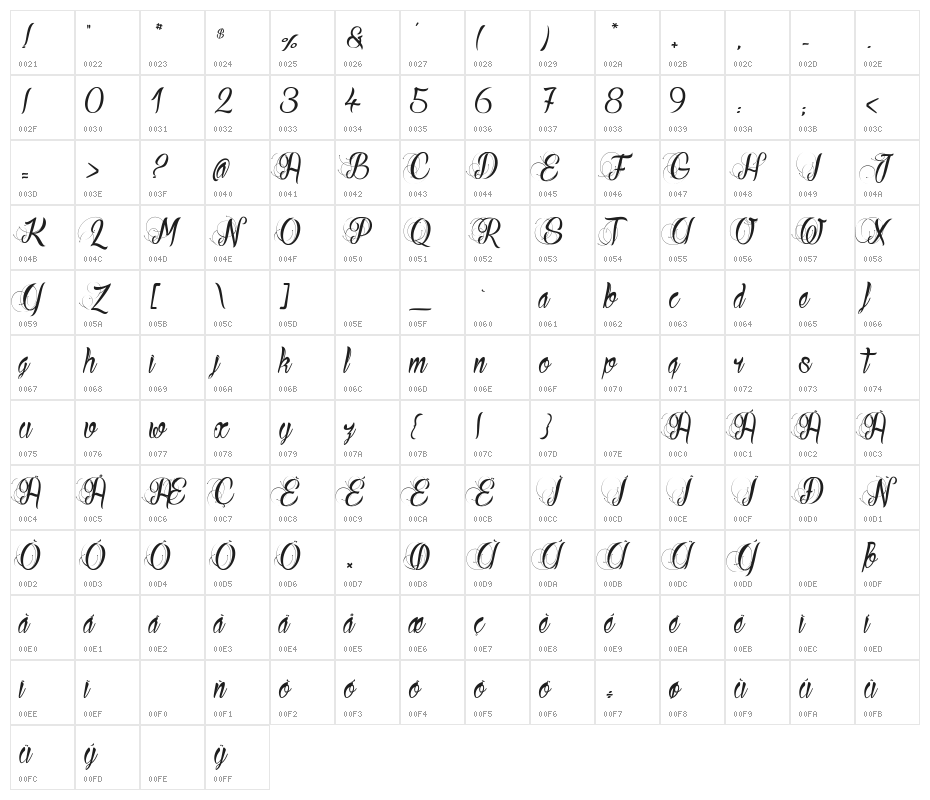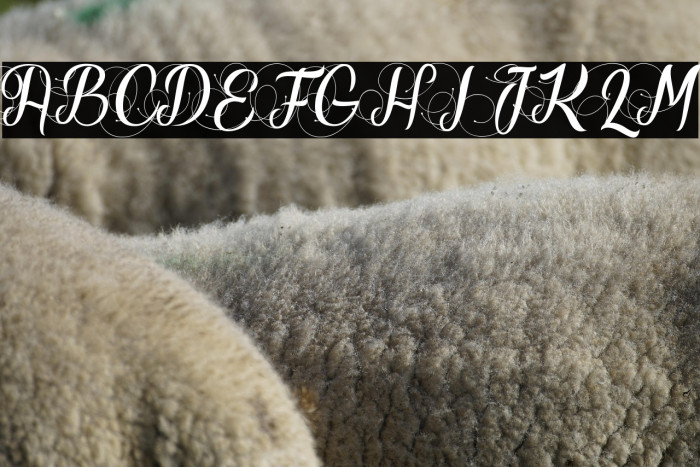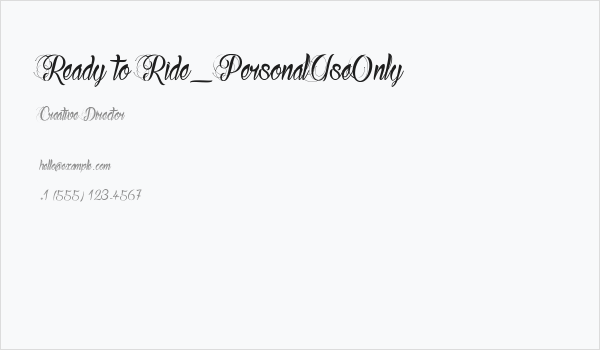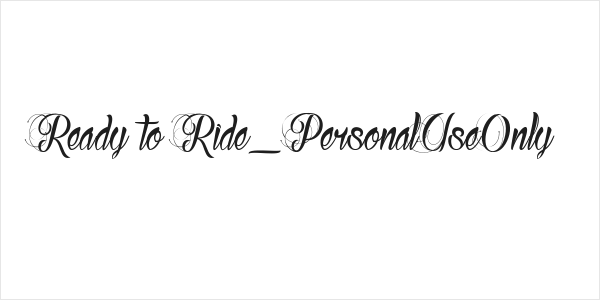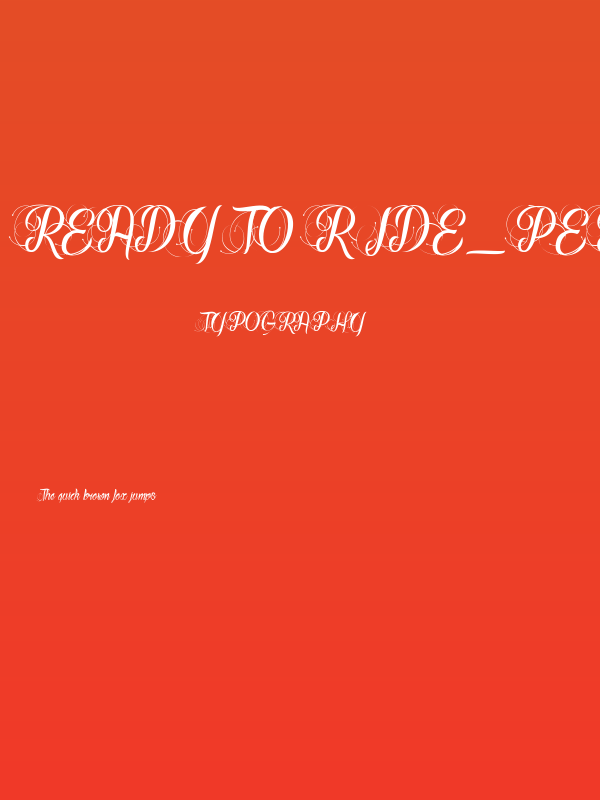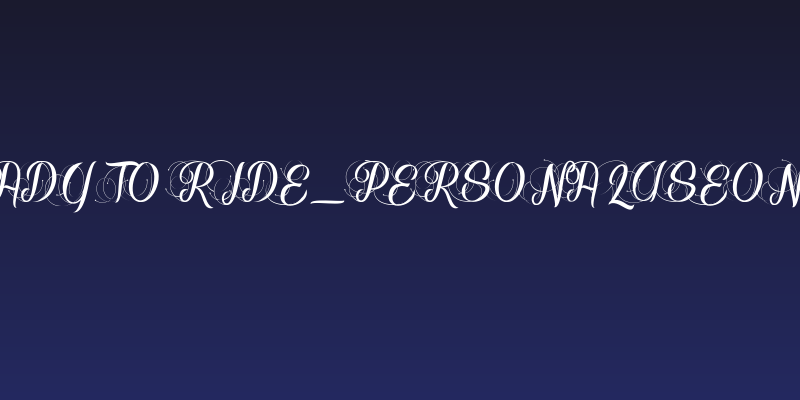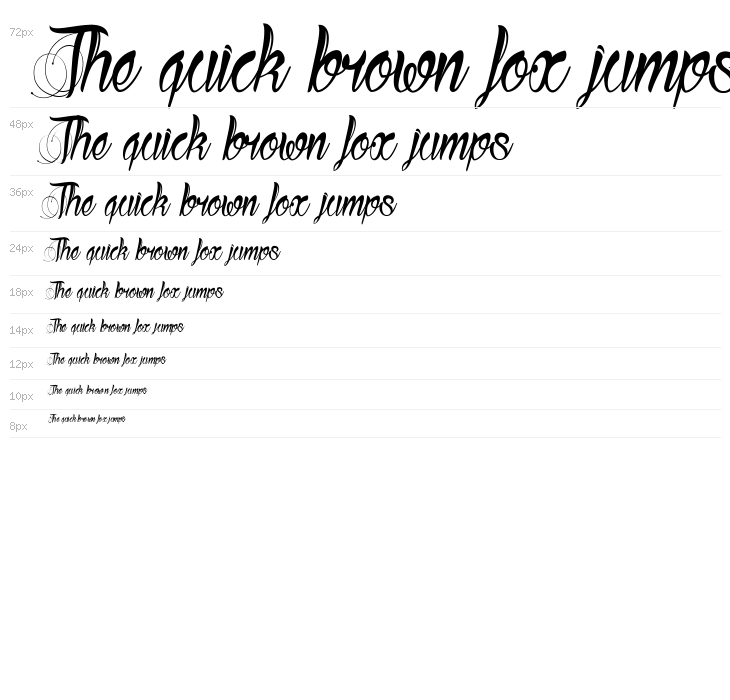
Ready to Ride_PersonalUseOnly Font
| श्रेणियाँ | Script |
| इटैलिक | Yes |
| कंट्रास्ट | High |
| समग्र शैली | Decorative |
| उपयोग का मामला | Headlines, Logos, Invitations |
| सुझाए गए प्रोजेक्ट | Ideal for wedding invitations, luxury branding, greeting cards, and decorative headlines. |